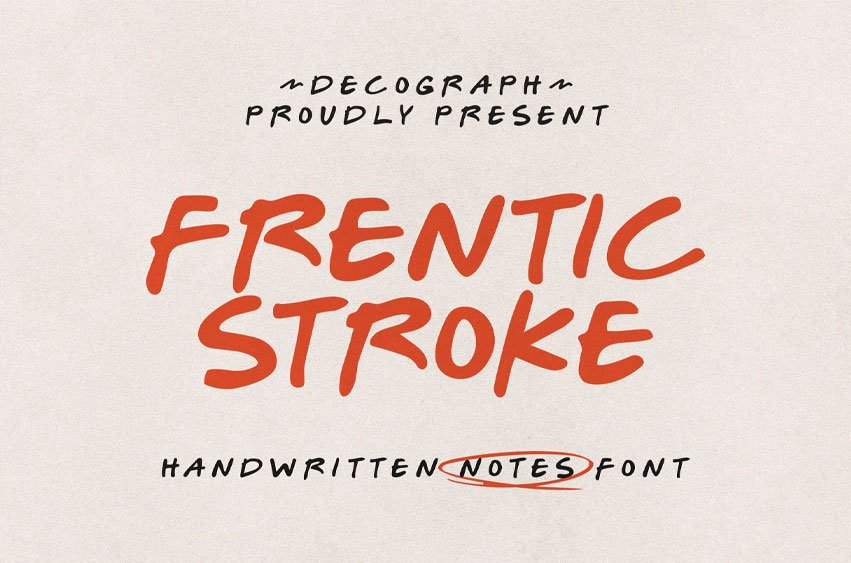
Frentic Stroke Font Handwritten Notes Font is a casual typeface inspired by quick handwriting and spontaneous note-taking. Its smooth strokes and natural flow create an authentic handwritten feel that is simple, expressive, and easy to read.
The clean structure keeps it practical while maintaining a personal and relaxed character.
- Smooth Natural Strokes
- Clean Handwritten Style